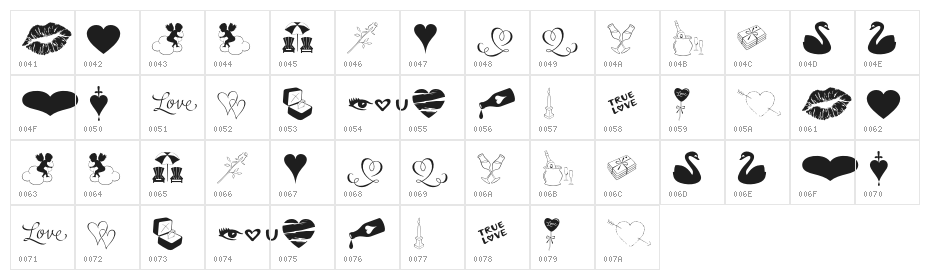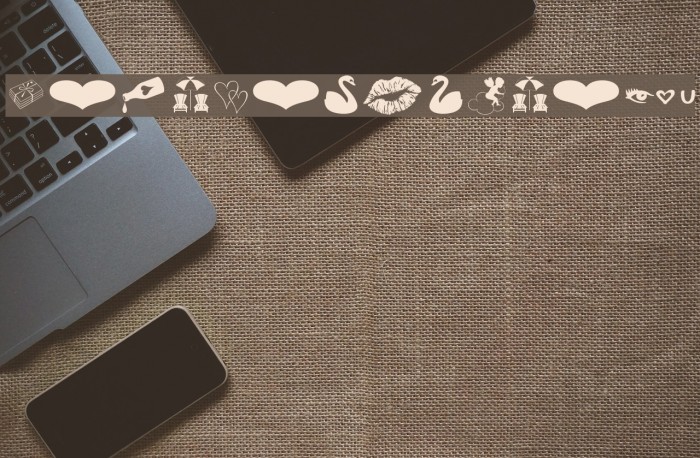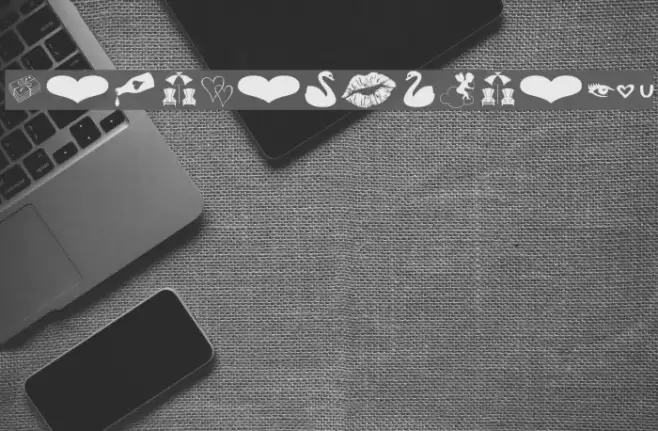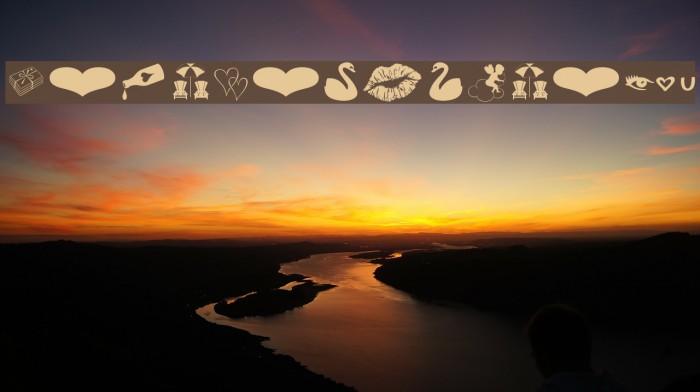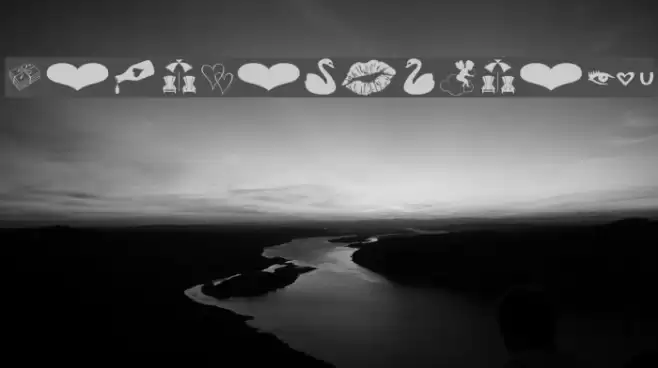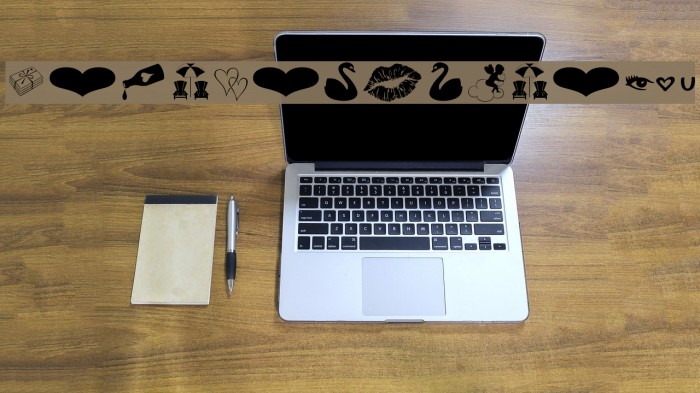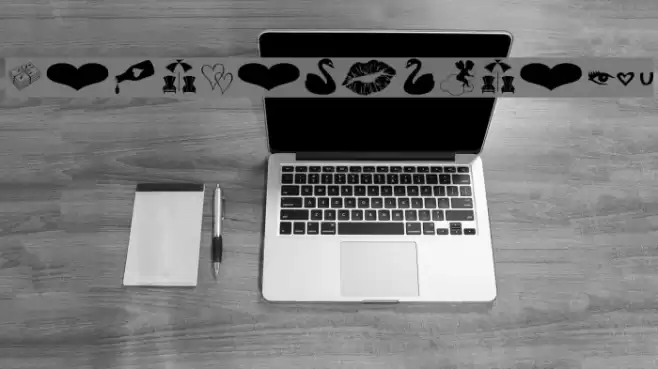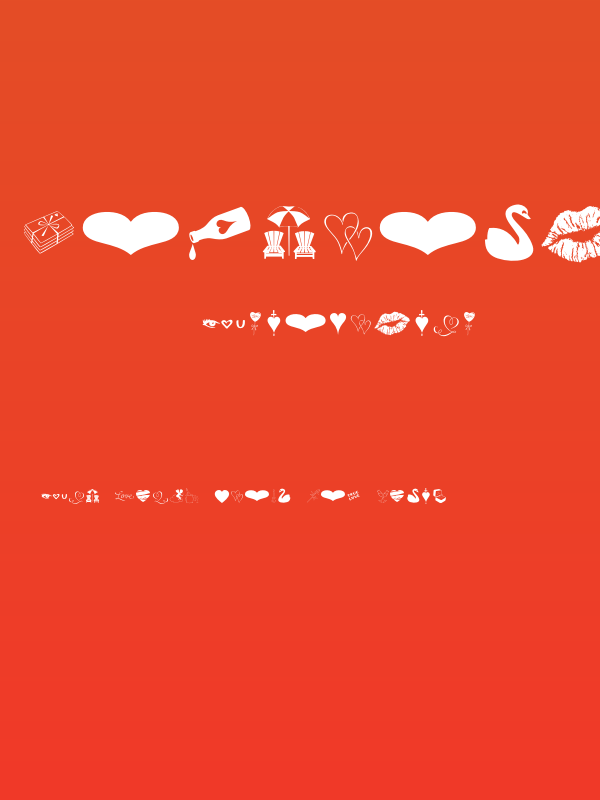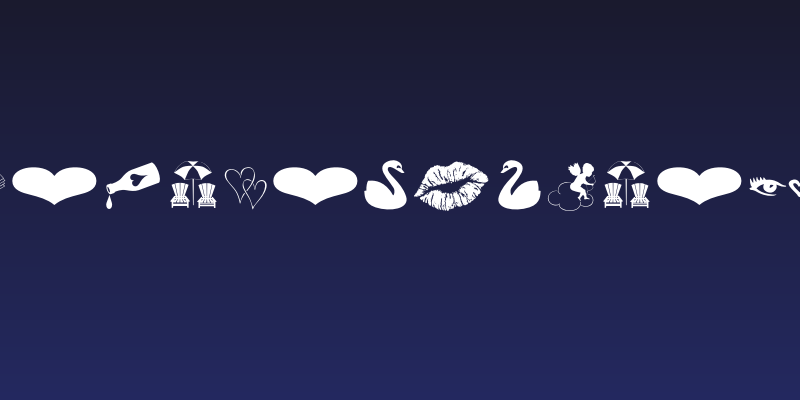
LoveRomanceOT Font
LoveRomanceOT Description
This decorative font is filled with romantic and whimsical symbols, including hearts, cherubs, swans, and love-related imagery. The characters are designed with intricate details, making them ideal for creating a romantic or playful atmosphere. The font includes a variety of symbols that convey themes of love and affection, such as lips, rings, and love letters. The style is playful and ornate, with a focus on conveying emotion and sentimentality. This font is perfect for projects that require a touch of romance and charm.
| Use Case | Logos, Headlines, Decorative elements |
| Proposed Projects | Ideal for wedding invitations, Valentine's Day cards, romantic event posters, and love-themed crafts. |